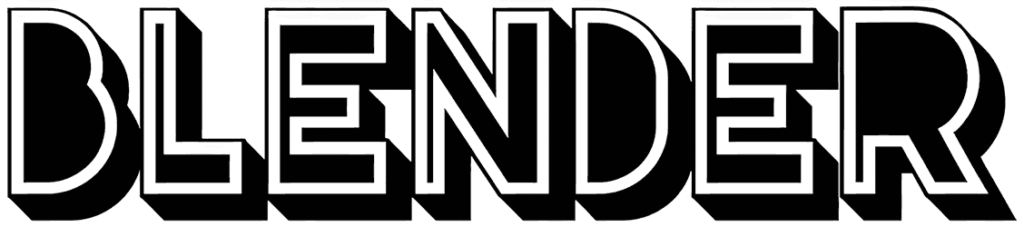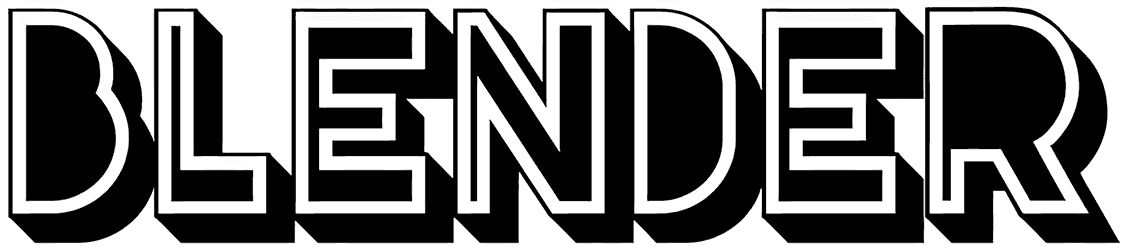
Blender Font
Blender is a 3D font with a powerful and bold style, making it ideal to use in movie titles, cartoons, novels, and posters. Blender’s lack of lowercase letters and numerals can be overlooked, though, because of the two-tone font’s modern look, which will also lend your work a somewhat futuristic vibe.